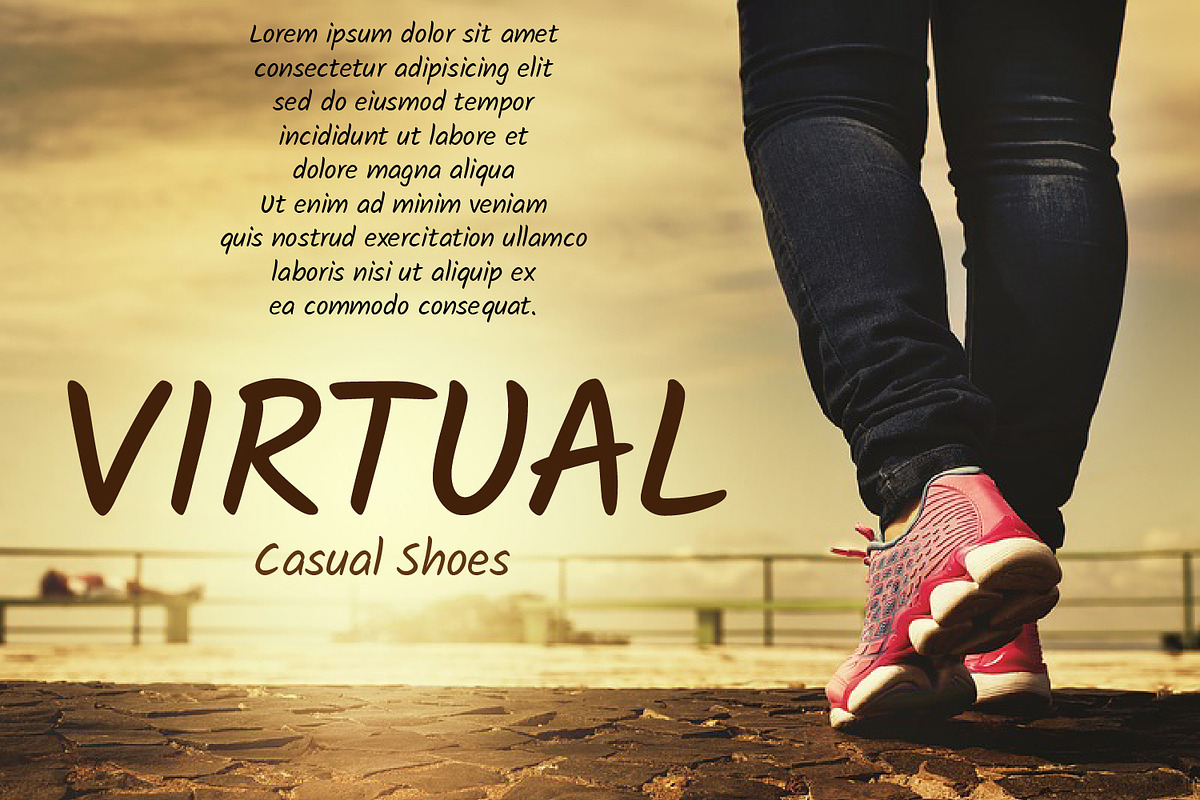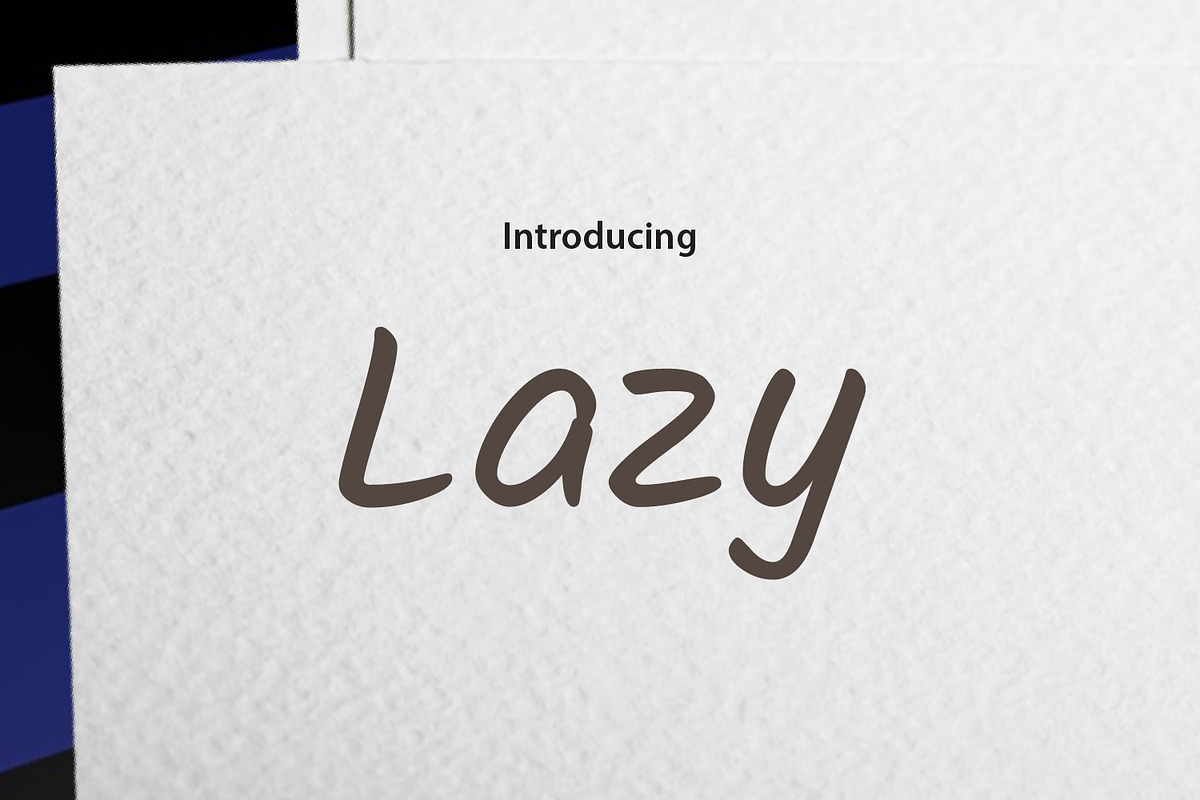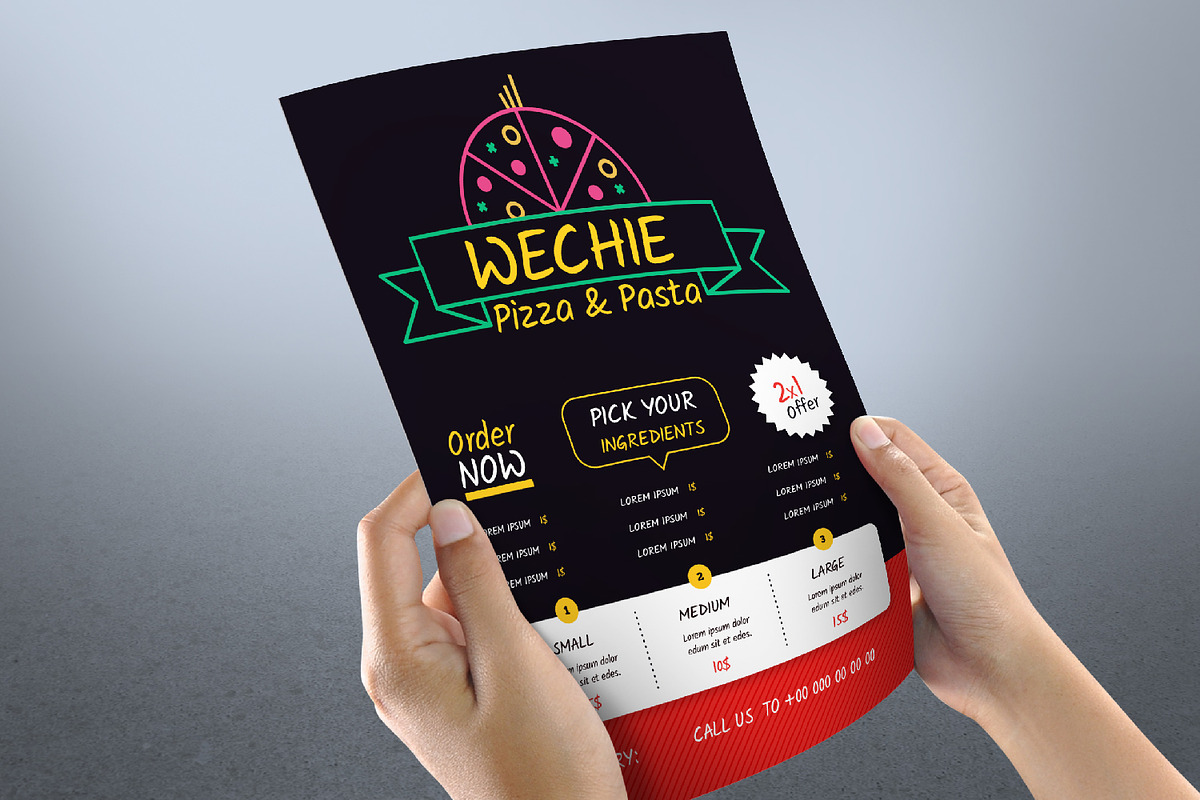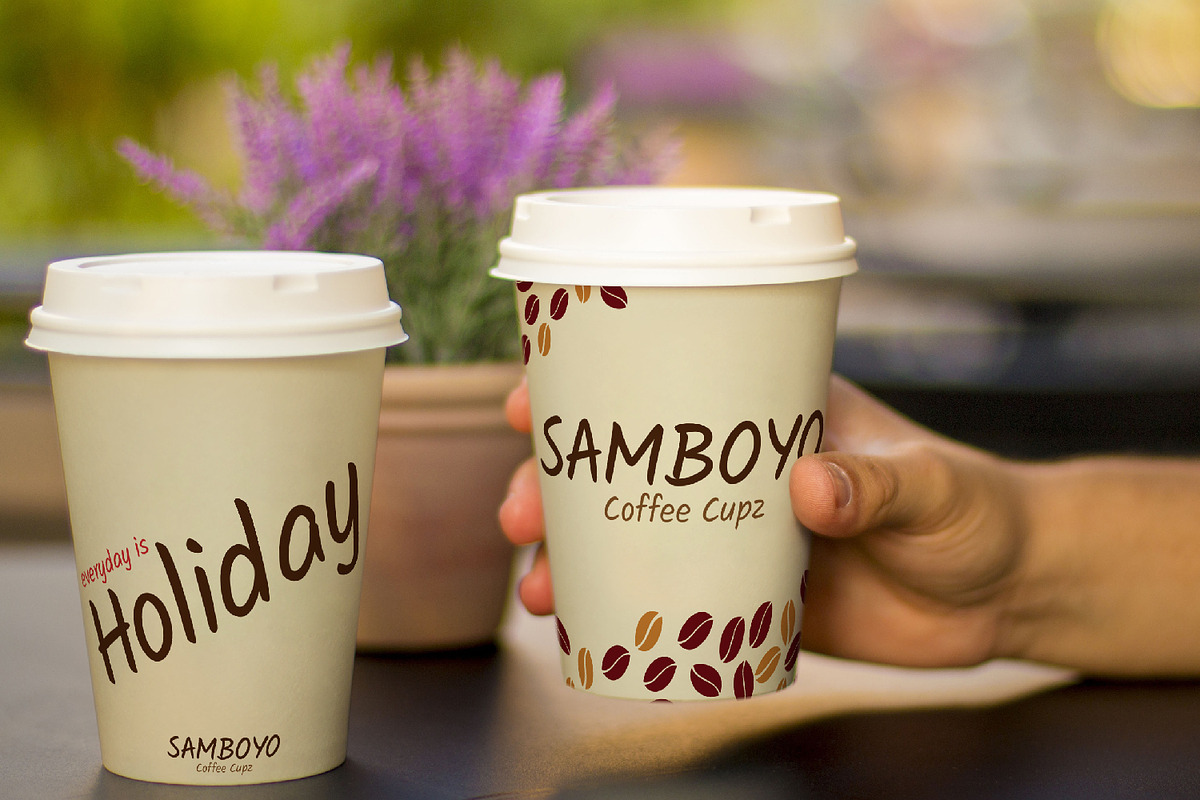
Being Lazy
Being Lazy is a handcrafted typeface, very stylish and fun character. It’s very great for your holiday or travel theme design. It can be used for various purposes, such as headings, card, logos, wedding invitations, t-shirts, letterheads, signage, labels, news, posters, badges, and much more!